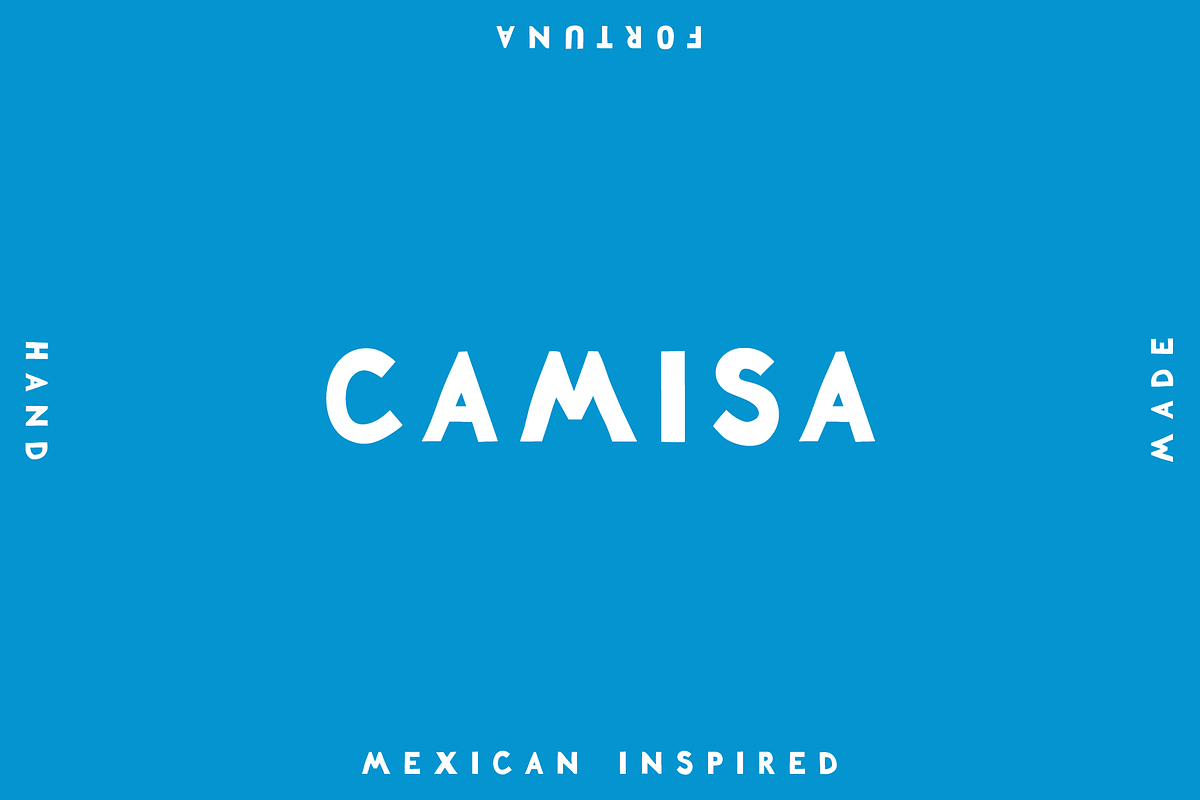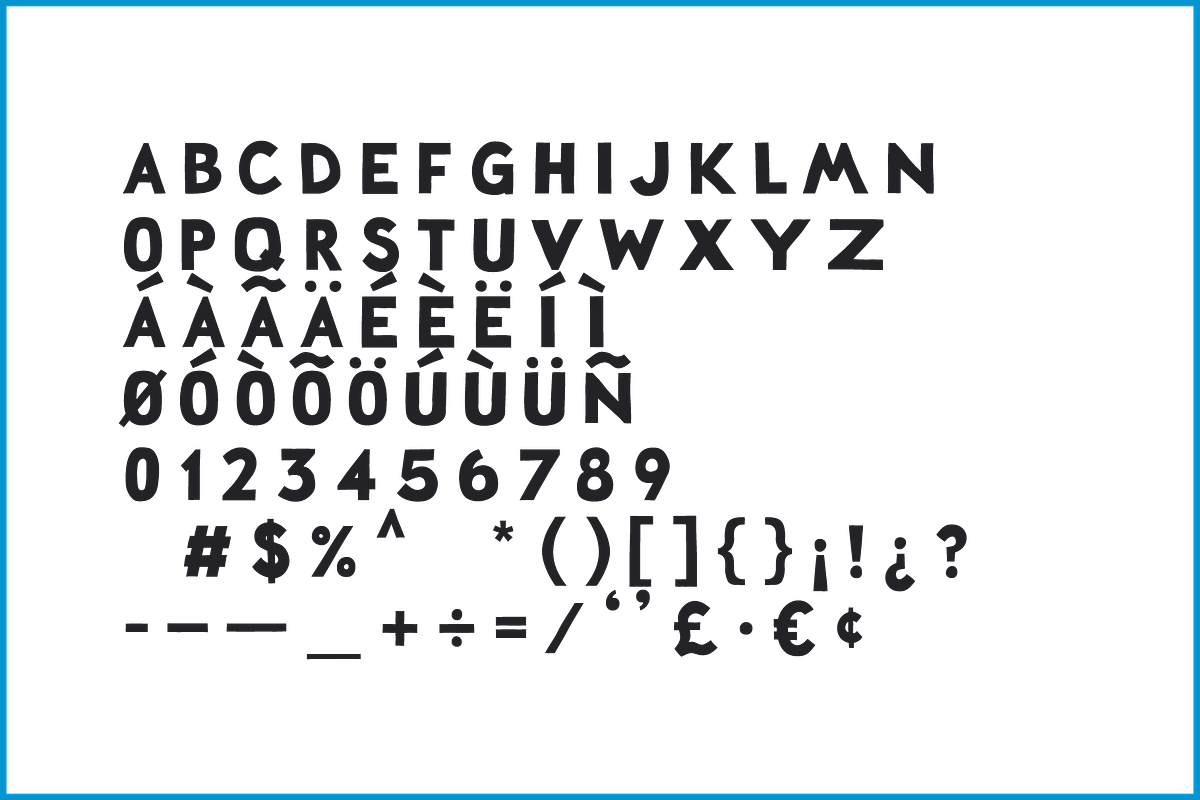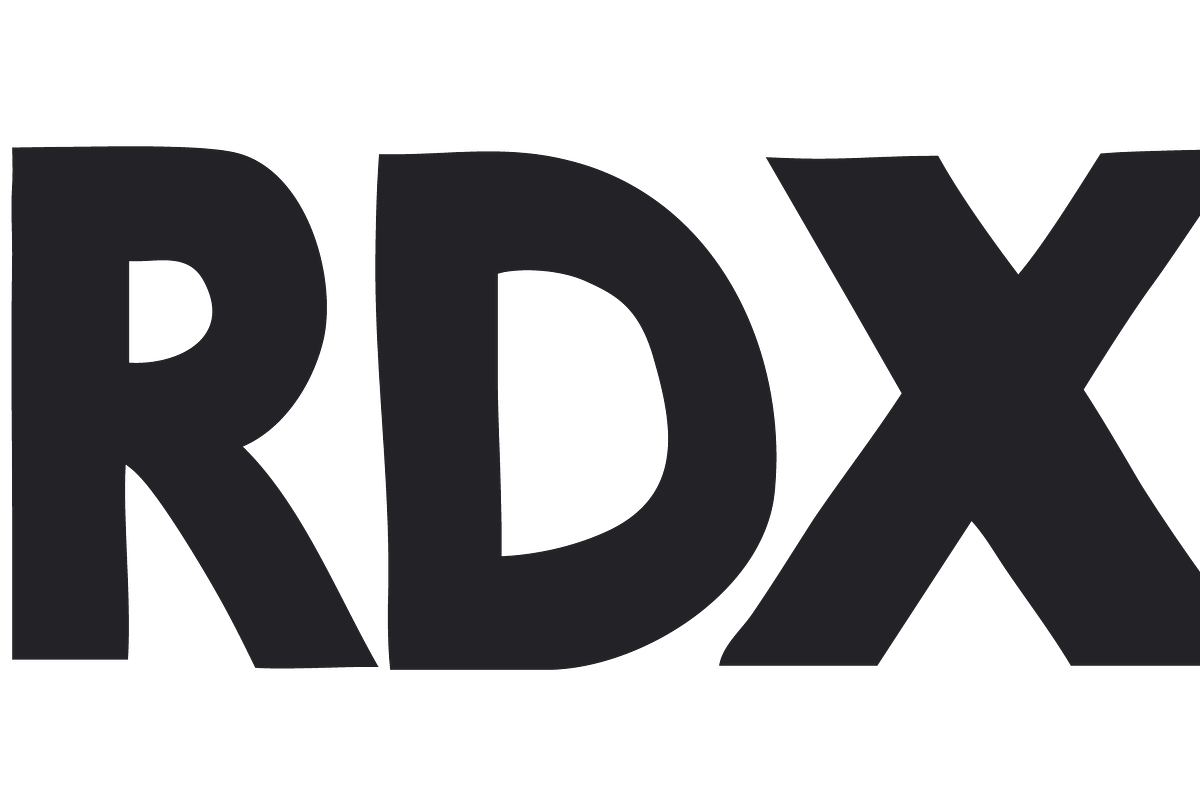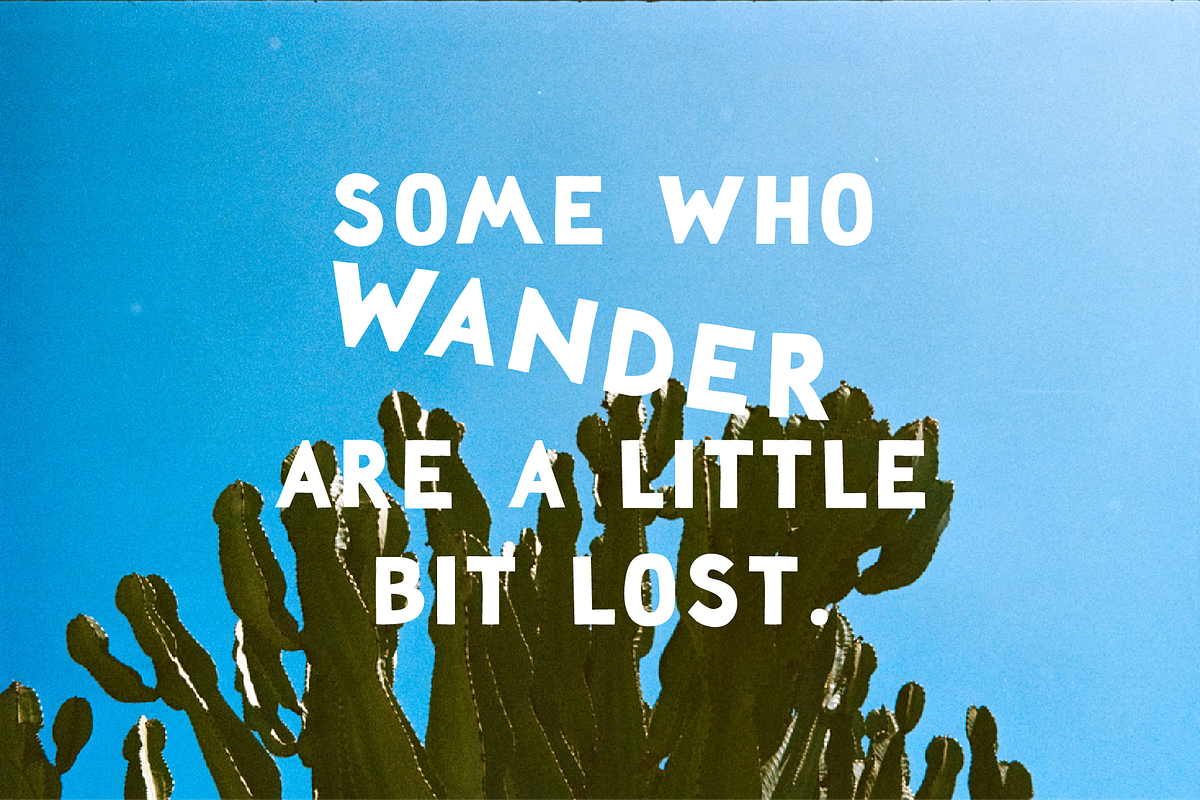
Camisa: Hand Drawn Sans Serif
Camisa takes inspiration from Mexican school posters.
Simple and direct. Camisa will get your message out with no fuss.
- Uppercase letters
- Digits
- Accents